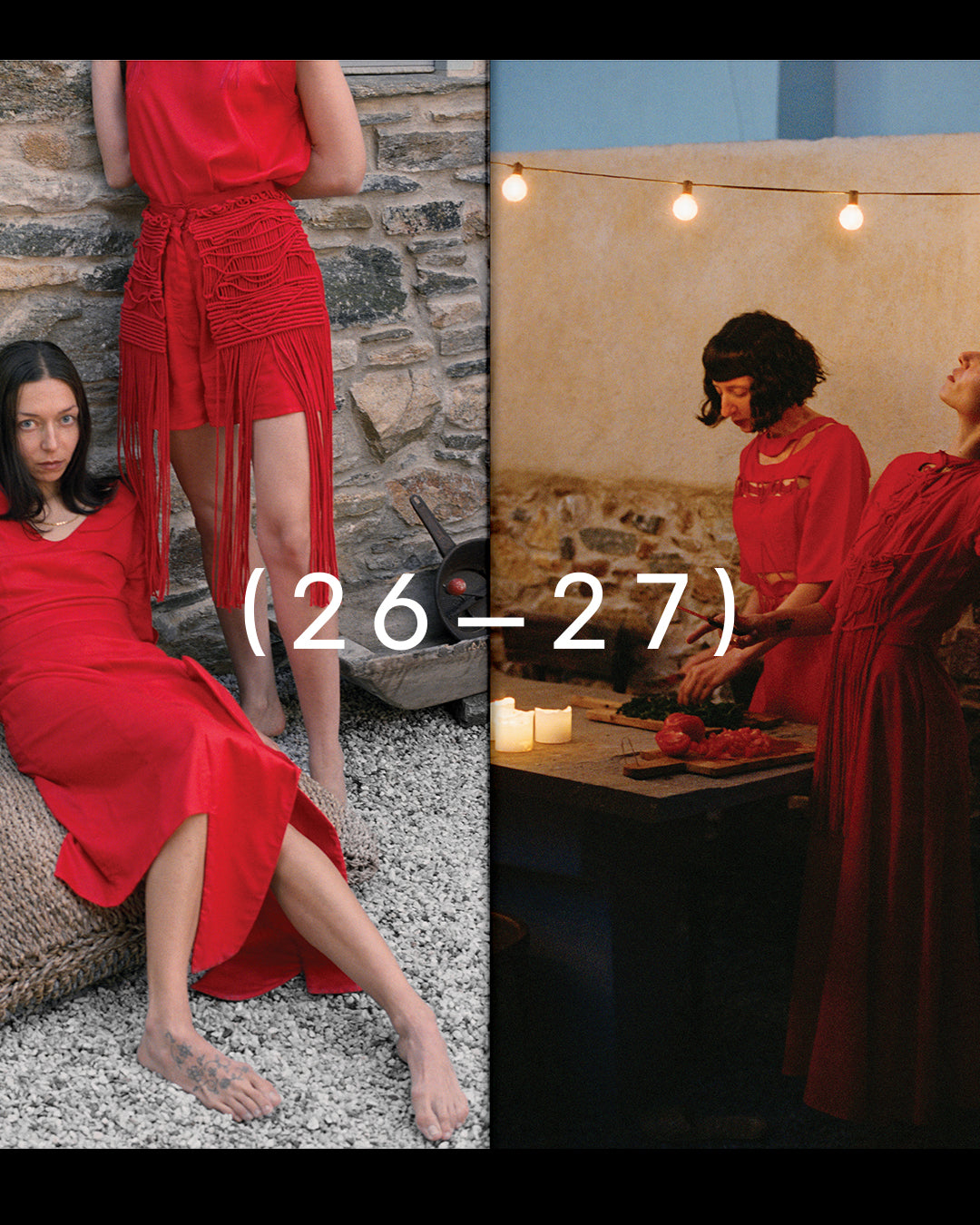
The Tinos collection is an ode to the simplicity and materiality of the Cycladic landscape. Inspired by the island’s stone architecture, dry stone walls, and natural geometries, it translates the memory of the place into sculptural silhouettes and earthy textures.
The garments function as “wearable landscapes,” with a palette drawn from lime, stone, clay, and dust, crafted from natural, organic materials in the house’s atelier, made-to-order.
The collection is captured through two photographic languages: black and white, emphasizing form and light; and color, highlighting materiality and geography. The publication consists of 42 pages in total: 36 body pages and 6 cover pages (4+2). The binding is saddle stitch.
Each 2WO+1NE=2 collection is based on a concept of nomadic thinking, drawing inspiration from different places — acting as a bridge between space, identity, and thoughtful design.
The design approach is based on geography, the materiality of the garments, and dialogue with place. It is a thoughtful translation of the environment into form, silhouette, and substance, which is then conveyed through a visual language that highlights exactly these values: Island, Landscape — Garment, Form.
This publication aims to map, represent, and simultaneously archive the work produced within this collection. Through the study of scale, color contrast, and the coexistence of elements, it seeks to express both the brand’s design philosophy and its photographic depiction.
Its goal is to create a meaningful dialogue — both with the reader and with the brands’s work itself. The use of typography follows this dialogue, intending to serve values such as immediacy, intensity and detail, statement and scale, weight and space.
2WO+1NE=2, Ενδυματολογικά Τοπία: Τήνος
Η συλλογή Τήνος είναι μια ωδή στη λιτότητα και την υλικότητα του κυκλαδίτικου τοπίου. Εμπνευσμένη από την πέτρινη αρχιτεκτονική, τις ξερολιθιές και τις φυσικές γεωμετρίες του νησιού, μεταφράζει τη μνήμη του τόπου σε γλυπτικές σιλουέτες και γήινες υφές.
Τα ρούχα λειτουργούν ως «φορέσιμα τοπία», με παλέτα από ασβέστη, πέτρα, πηλό και σκόνη, κατασκευασμένα από φυσικά, οργανικά υλικά στο εργαστήριο του οίκου, κατά παραγγελία.
Η συλλογή αποτυπώνεται μέσα από δύο φωτογραφικές γλώσσες: ασπρόμαυρη για τη φόρμα και το φως, έγχρωμη για την υλικότητα και τη γεωγραφία.
Κάθε συλλογή του 2WO+1NE=2 βασίζεται σε έναν εννοιολογικό νομαδισμό, αντλώντας έμπνευση από διαφορετικούς τόπους — ως γέφυρα ανάμεσα στον χώρο, την ταυτότητα και τον στοχαστικό σχεδιασμό.
Η σχεδιαστική προσέγγιση βασίζεται στη γεωγραφία, την υλικότητα των ενδυμάτων και τον διάλογο με τον τόπο. Αποτελεί μια στοχαστική μετάφραση του περιβάλλοντος σε φόρμα, σιλουέτα και ύλη, η οποία στη συνέχεια μεταφέρεται σε μια οπτική γλώσσα που αναδεικνύει ακριβώς αυτές τις αξίες: Νησί, Τοπίο — Ένδυμα, Φόρμα.
Η παρούσα έκδοση επιδιώκει να χαρτογραφήσει, να αποδώσει και ταυτόχρονα να αρχειοθετήσει το έργο που παρήχθη στο πλαίσιο αυτής της συλλογής. Μέσα από τη μελέτη της κλίμακας, της χρωματικής αντίθεσης και της συνύπαρξης των στοιχείων, επιχειρεί να εκφράσει τόσο τη σχεδιαστική σκέψη του οίκου όσο και τη φωτογραφική της απεικόνιση.
Στόχος της είναι να δημιουργήσει έναν ουσιαστικό διάλογο — τόσο με τον αναγνώστη όσο και με το ίδιο το έργο του οίκου. Η χρήση της τυπογραφίας ακολουθεί με τη σειρά της αυτόν τον διάλογο, θέλοντας να υπηρετήσει έννοιες όπως η αμεσότητα, η ένταση και η λεπτομέρεια, η δήλωση και η κλίμακα, το βάρος και ο χώρος.
Η έκδοση αποτελείται από 42 σελίδες συνολικά: 36 σελίδες σώμα και 6 σελίδες εξώφυλλο (4+2).
Η βιβλιοδεσία είναι καρφίτσα (saddle stitch).